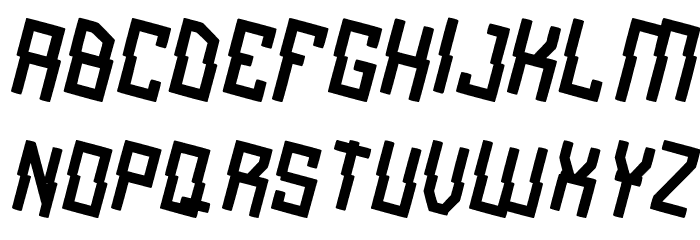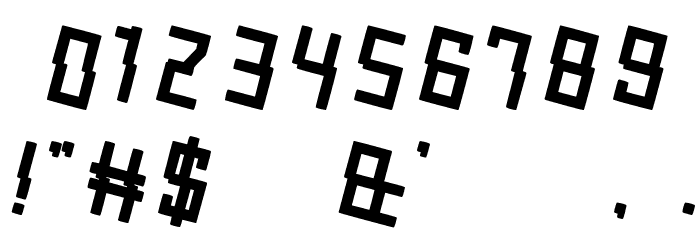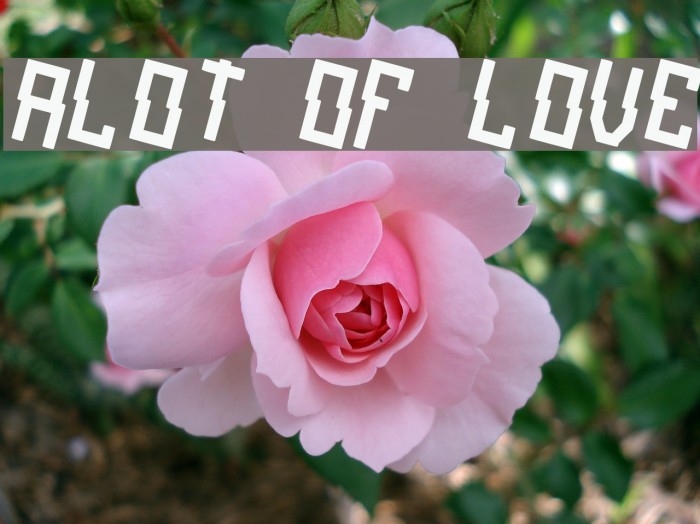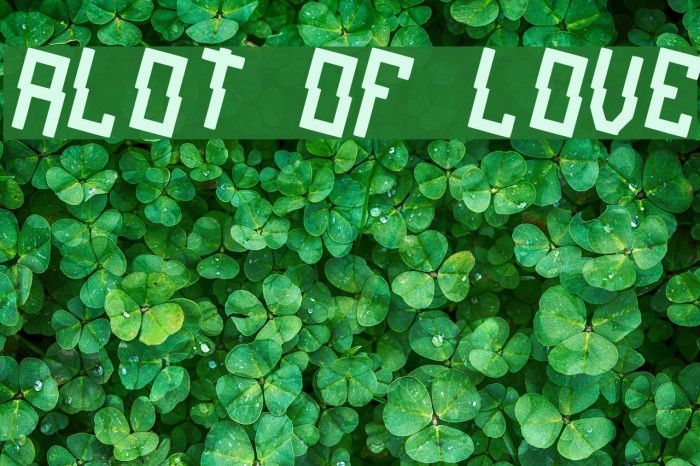
alot of love Font
This font features a bold and angular design, characterized by its geometric and blocky letterforms. Each character is constructed with sharp edges and consistent stroke widths, giving it a modern and industrial feel. The uppercase and lowercase letters maintain a uniform height, contributing to a cohesive and structured appearance. The numerals and special characters follow the same design principles, ensuring a seamless integration across different text elements. The font's distinct style makes it suitable for projects that require a strong visual impact.
A bold, angular font with geometric and blocky letterforms.
- Proposed Projects: Ideal for branding, posters, headlines, and any design requiring a modern, industrial aesthetic.